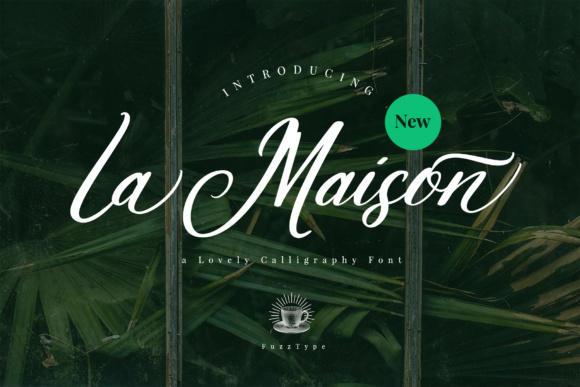
La Maison Script Font
Introducing the enchanting La Maison Script Font, a masterpiece that will cast a spell of sophistication upon your designs. Its graceful strokes and delicate flourishes dance across the page, creating a captivating symphony of elegance.
Inspired by the romantic allure of Parisian script, La Maison embodies the essence of timeless beauty. Its curves flow effortlessly, intertwining like ivy around a trellis, inviting you to lose yourself in its graceful embrace. Each character is a work of art, adorned with intricate details that whisper tales of love, passion, and dreams.
Whether you're crafting heartfelt invitations, ethereal branding, or enchanting social media posts, La Maison Script Font will elevate your words to new heights of artistry. Its versatility knows no bounds, lending itself seamlessly to a myriad of creative endeavors.
Imagine the allure of your wedding invitations adorned with La Maison's sweeping strokes, each letter a testament to the love you share. Your branding will exude an air of sophistication, leaving an unforgettable impression upon your clients. And on social media, your posts will blossom with a touch of elegance, captivating the hearts of your followers.
But beyond its practical applications, La Maison Script Font holds a deeper allure. It is a font that evokes emotions, stirring within you a sense of wonder and inspiration. Its delicate lines whisper secrets of love, its flourishes paint pictures of dreams, and its overall essence captivates the soul.
So let La Maison Script Font be your muse, guiding you towards creative heights you never thought possible. With its timeless charm and unwavering elegance, it will transform your designs into masterpieces that speak to the heart and leave an enduring legacy of beauty.
Indulge in the enchanting allure of La Maison Script Font today, and embark on a journey of artistic exploration that will leave your designs forever transformed.